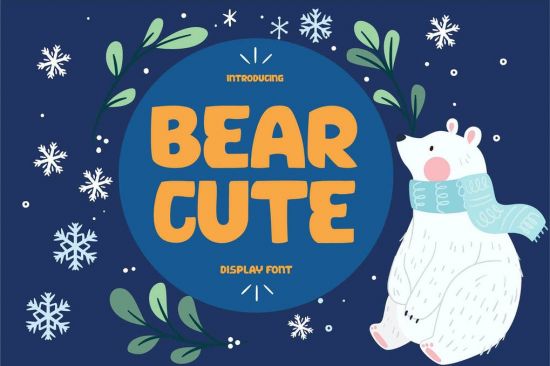
BEAR CUTE is a handicraft font. BEAR CUTE can be used for products such as handcraft, product packaging, quotes, product design, craftsmen, labels, photography, watermarks, logos & branding. Everything can be accessed using software that supports Opentype, such as Adobe Indesign, Adobe CS Illustrator, Adobe Photoshop CC, and Corel Draw.